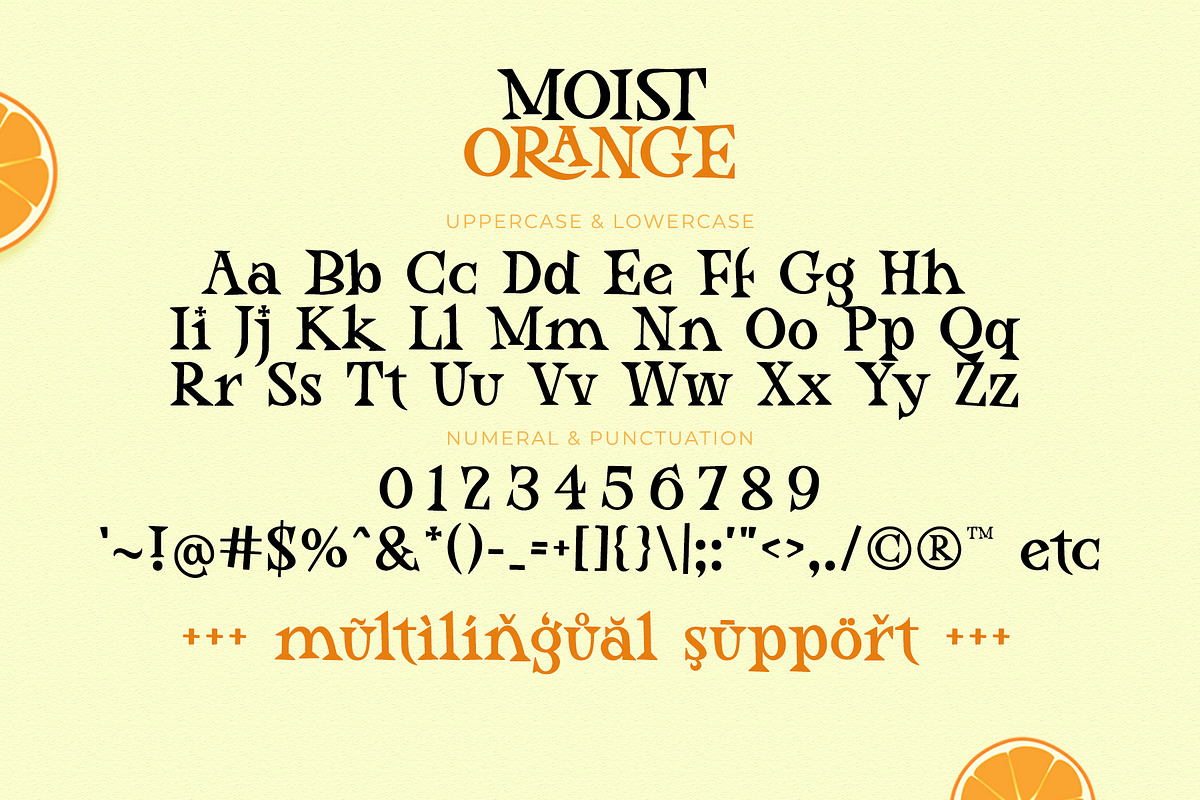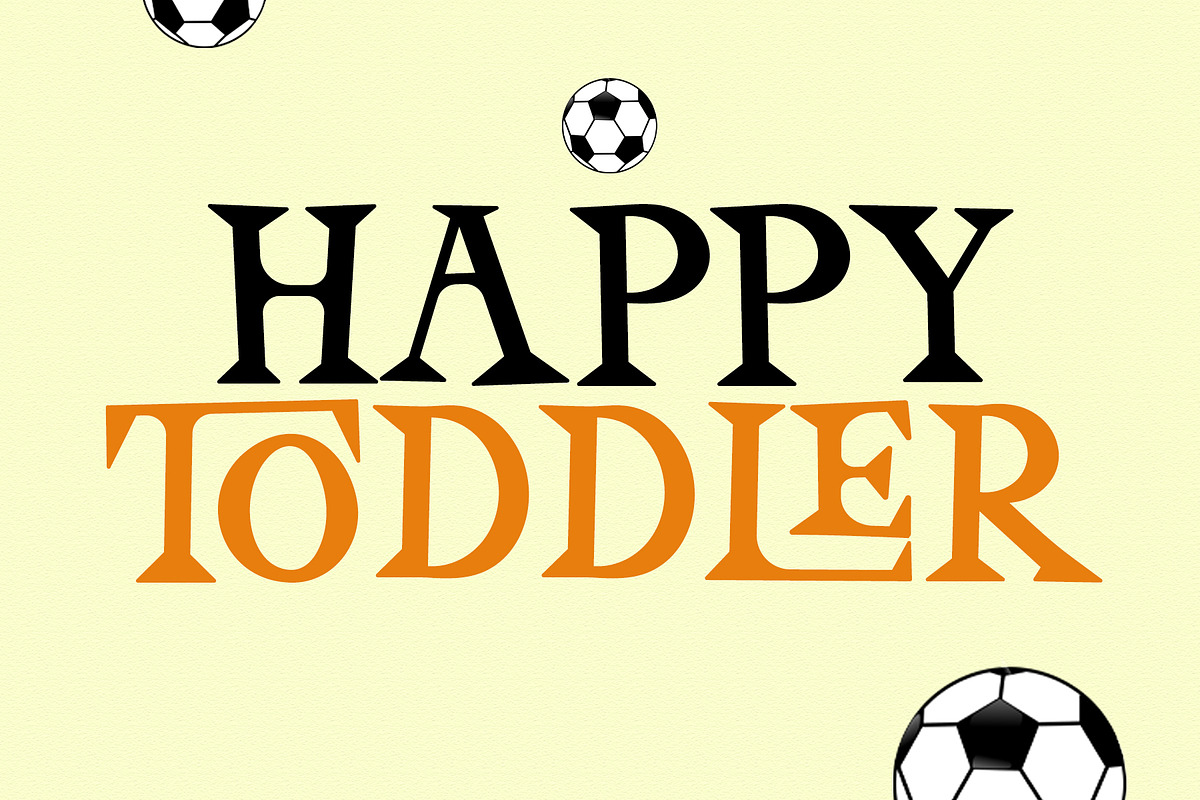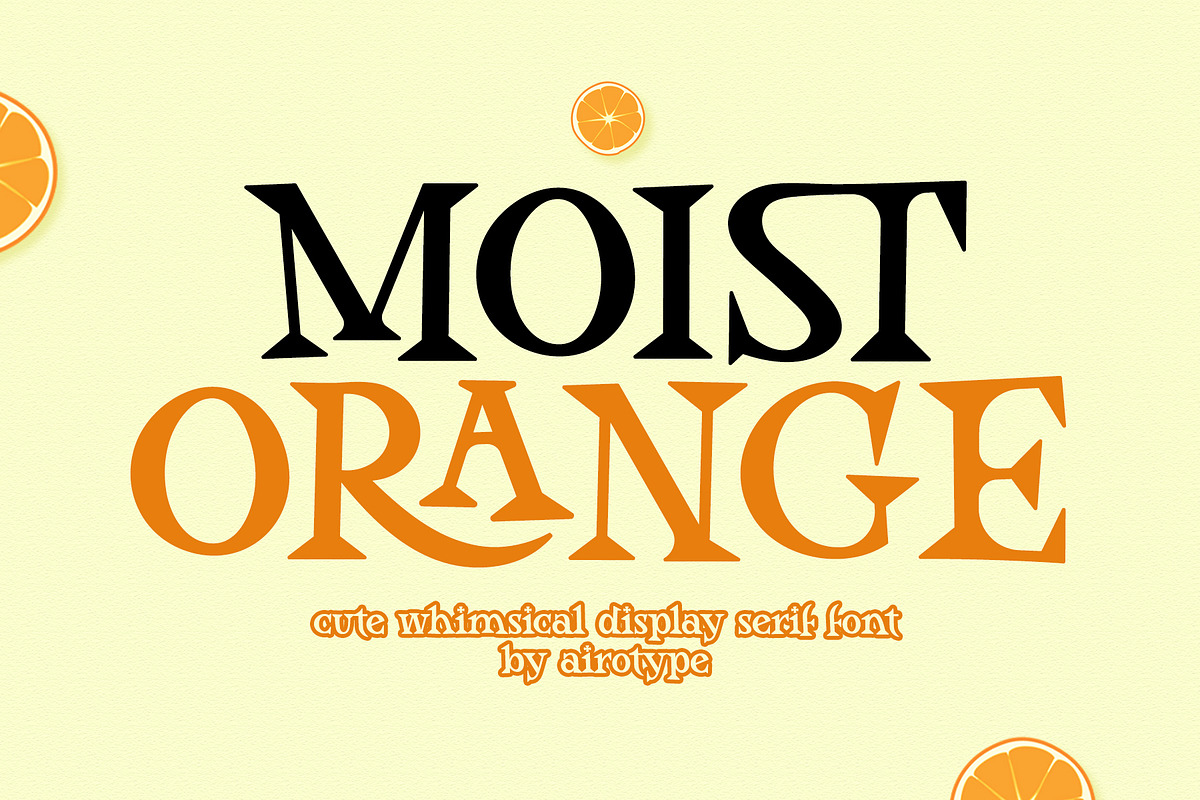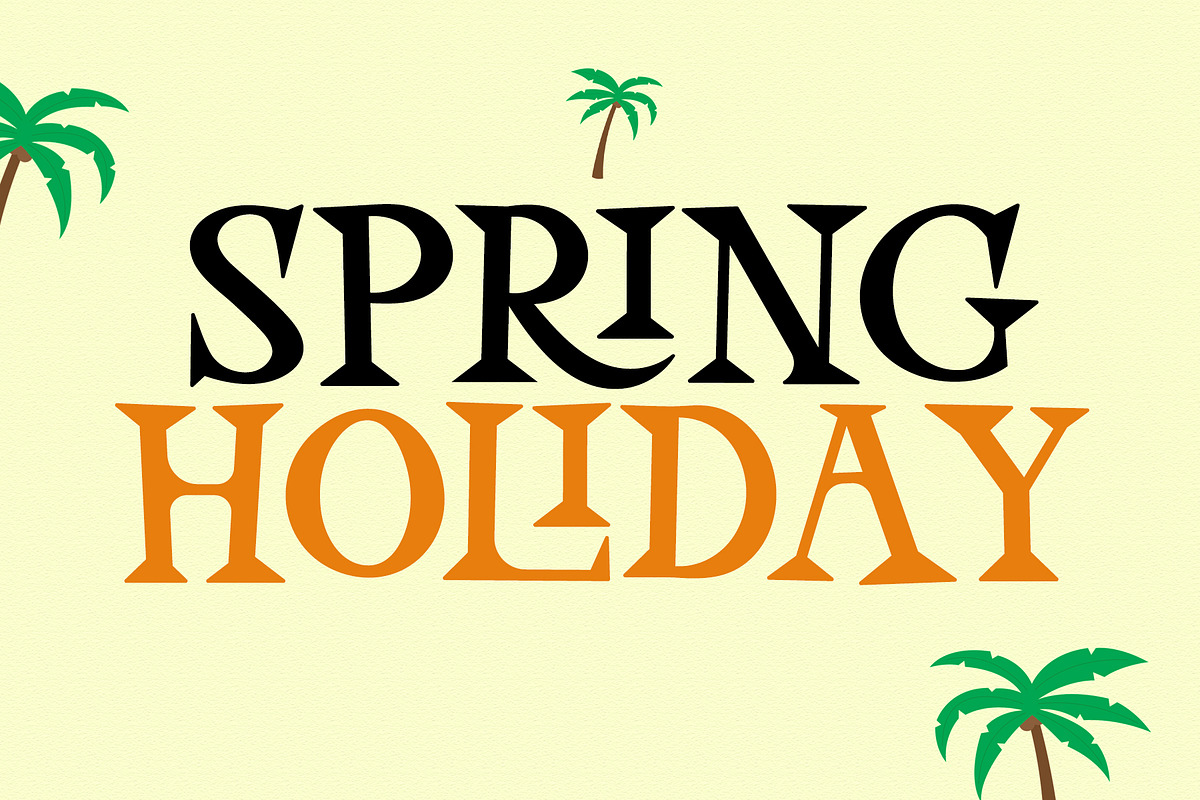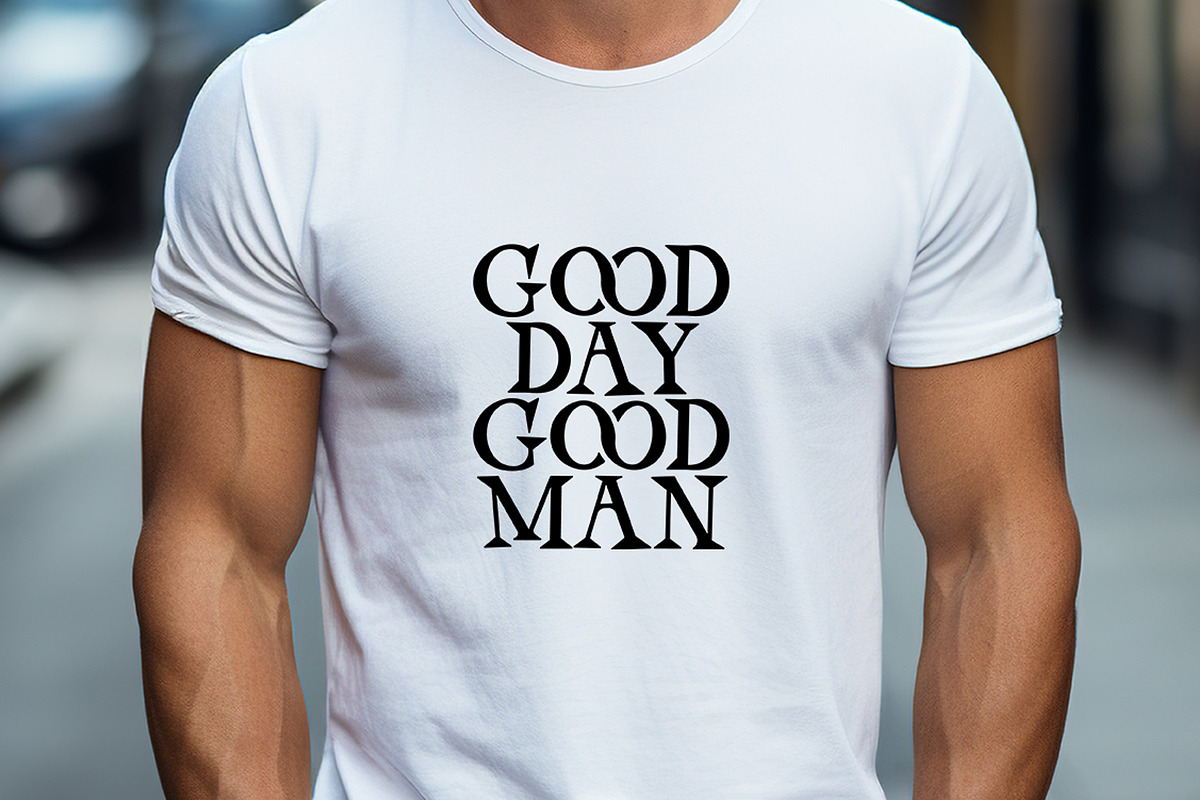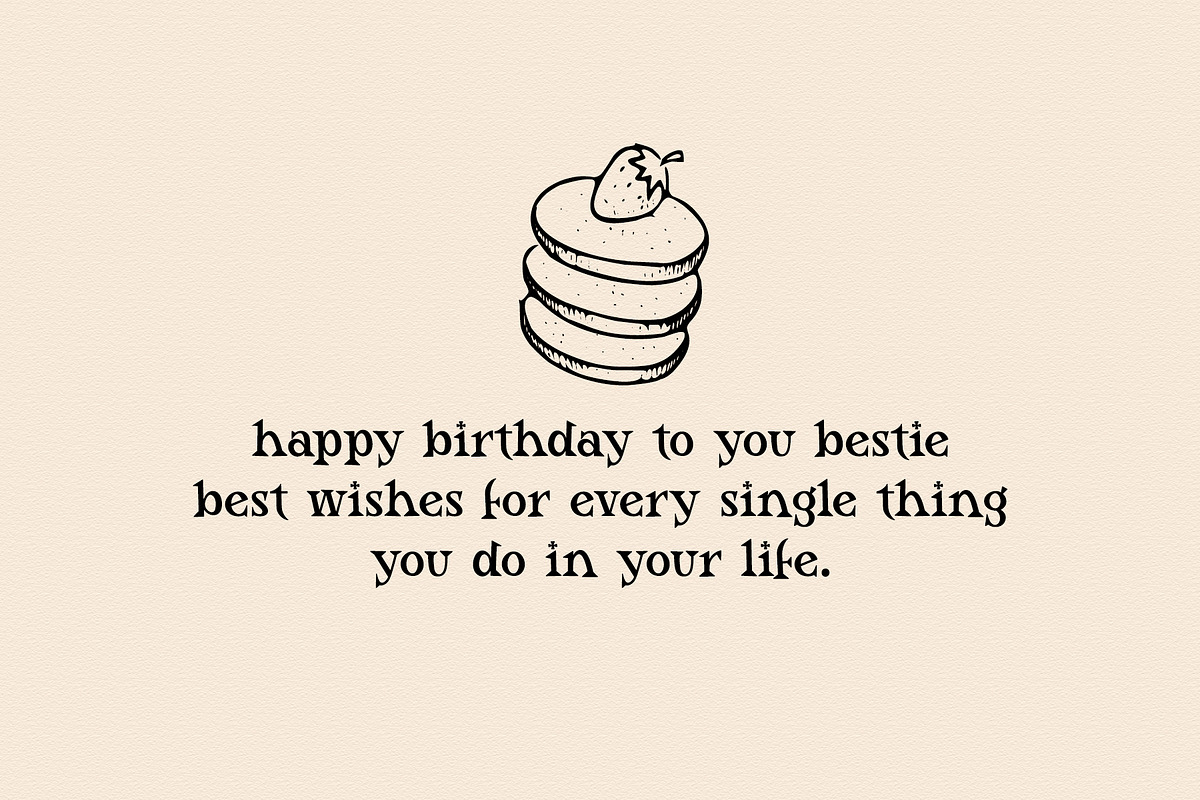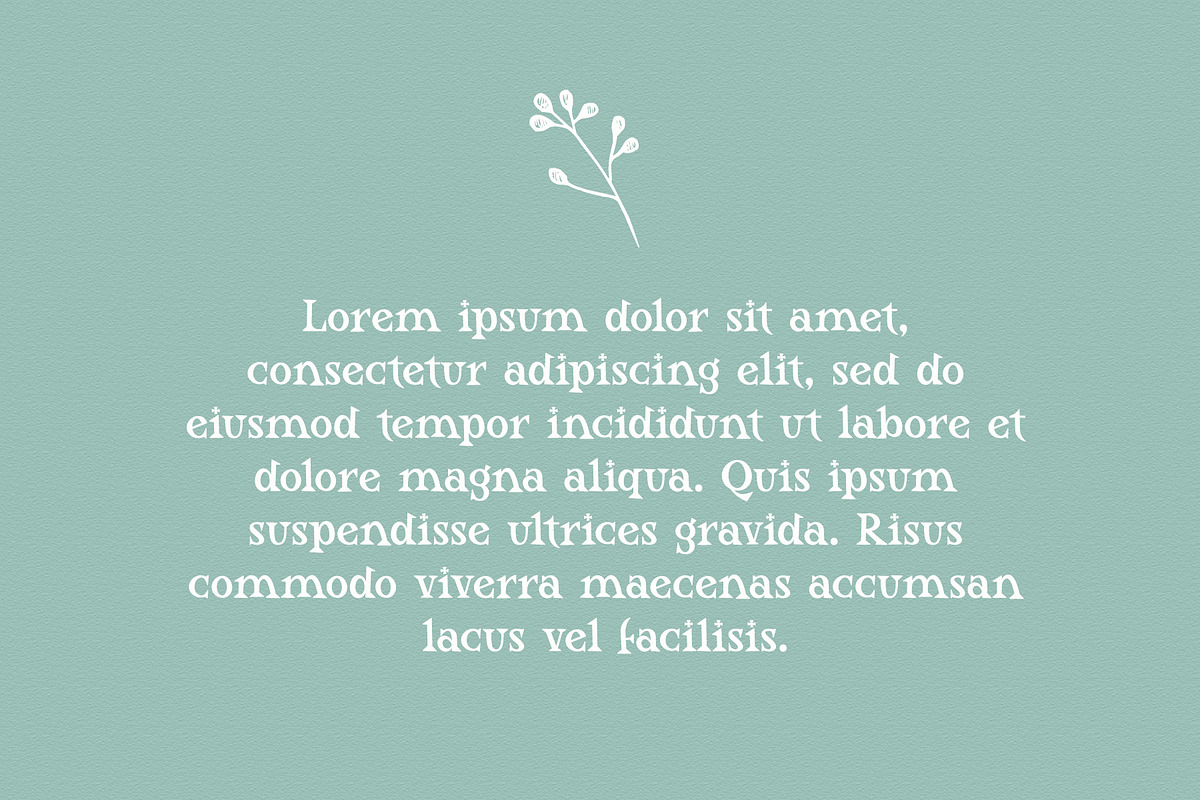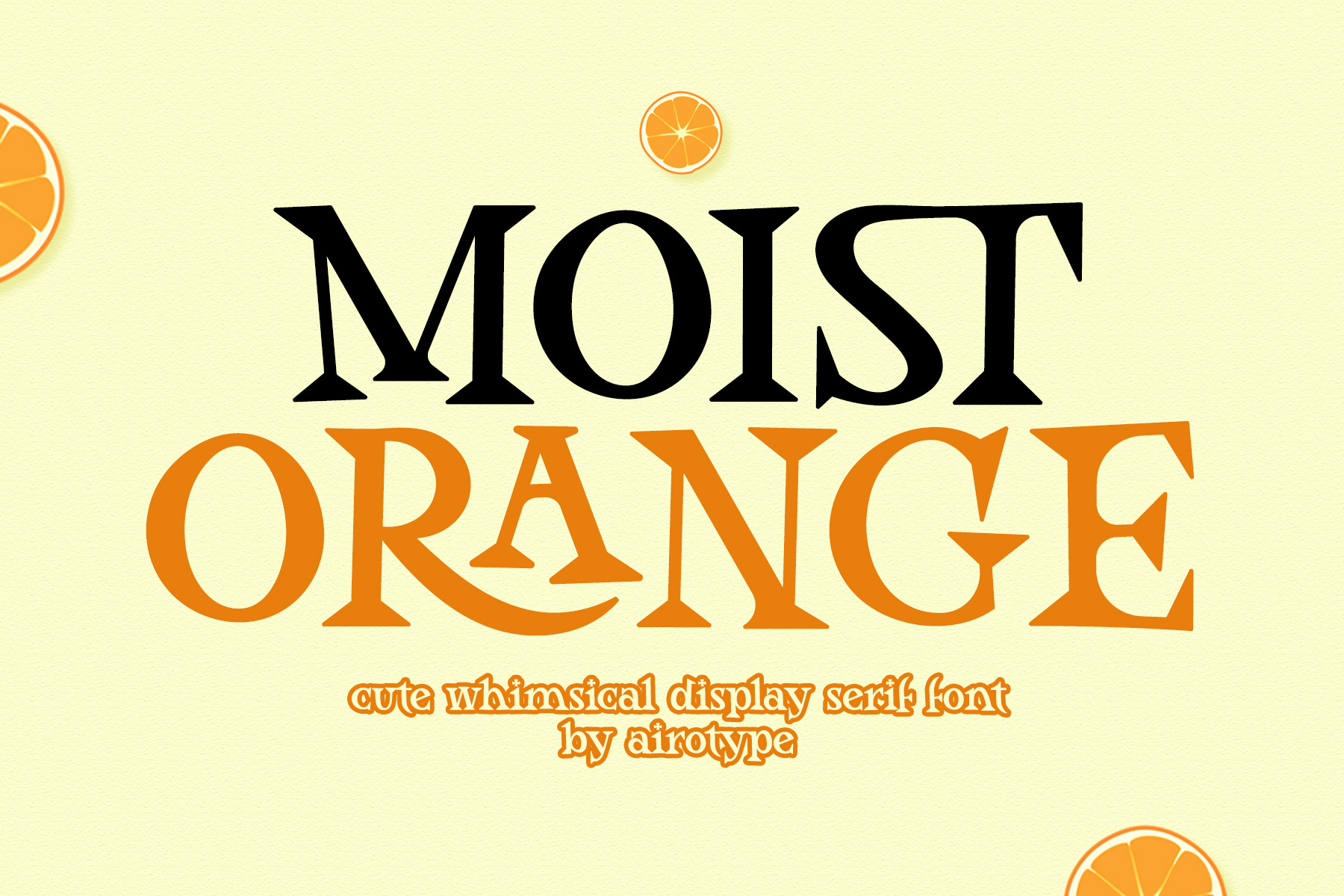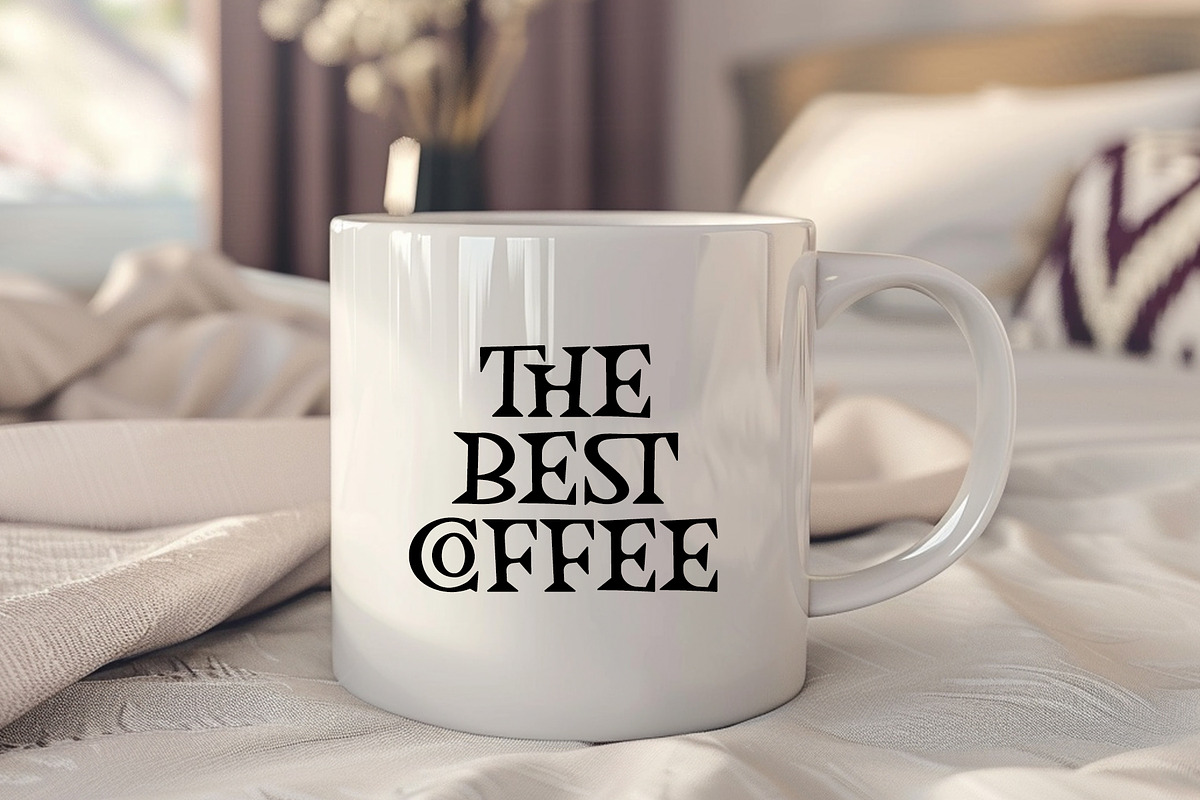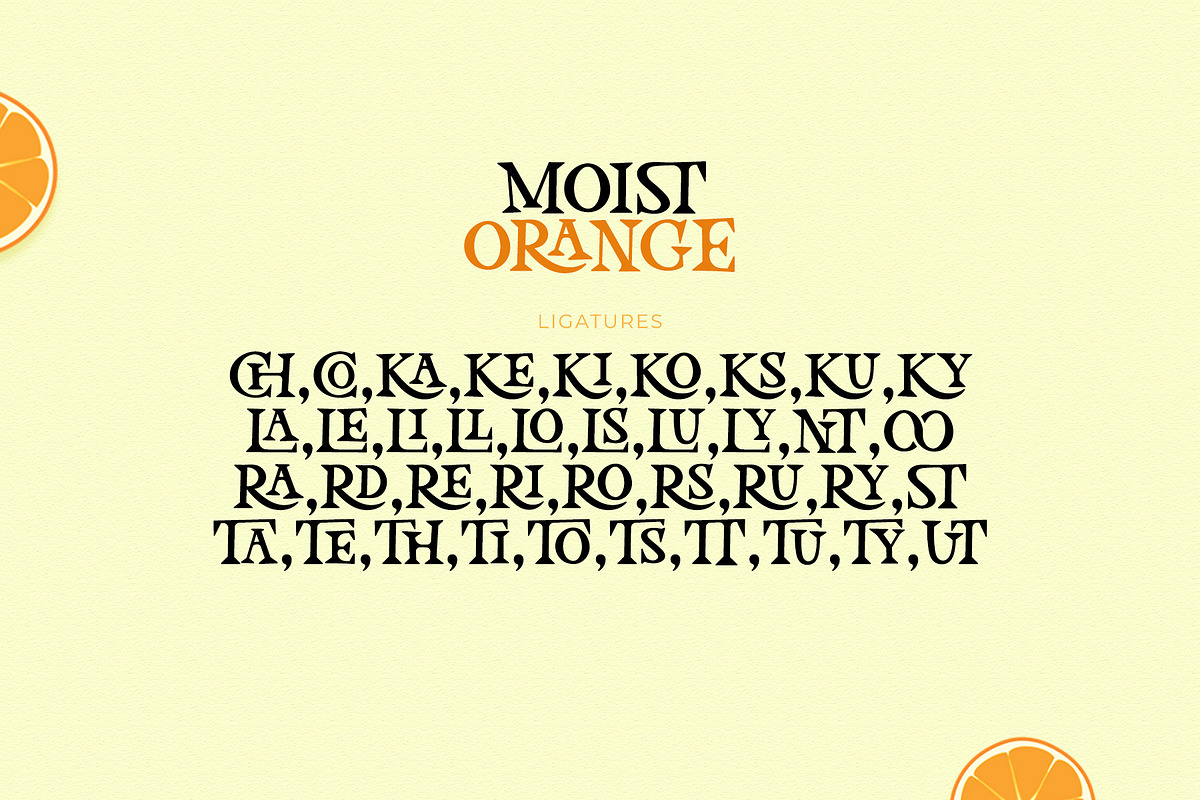
Moist Orange - Cute Serif Font
Moist Orange is cute and charming serif font. This font radiates fun and happiness.
Moist Orange has few ligatures with cute style. Make sure your design software has ligature features.
Moist Orange is perfect choice font for design with cute theme, such as t-shirt, logo, display, crafting, sticker, quotes, tumbler, and many more.
- Uppercase and Lowercase (include uppercase ligatures)
- Most Multilingual Accent